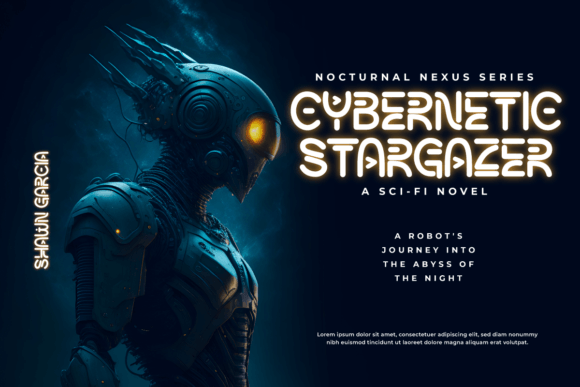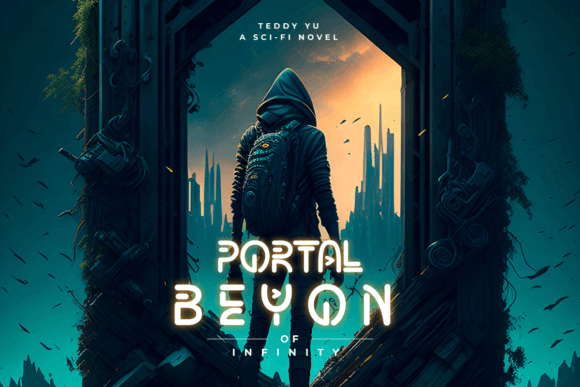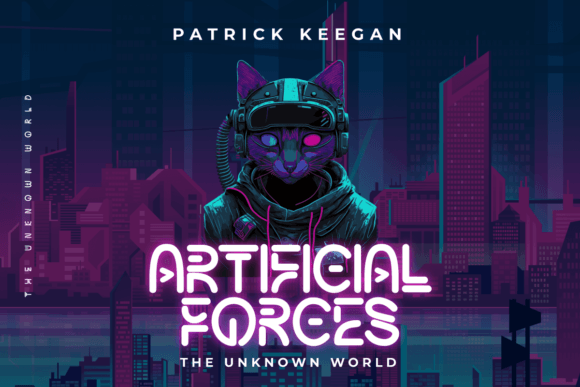
Introduction to Mexury Font
Welcome to Mexury, a font that transports you to the future with an alluring modern and futuristic twist.
Are you looking for the perfect solution for modern, futuristic, sci-fi, and future-themed projects Mexury is the right choice.
Key Features of Mexury Font
Why Choose Mexury Font?